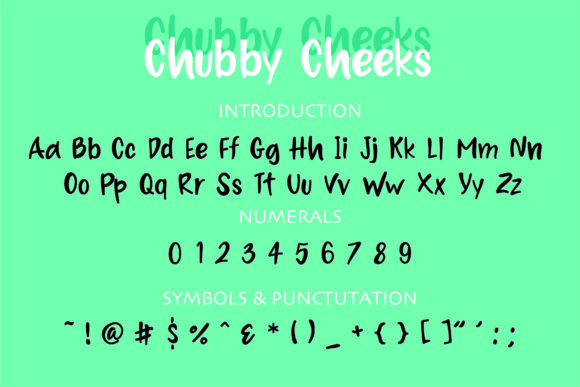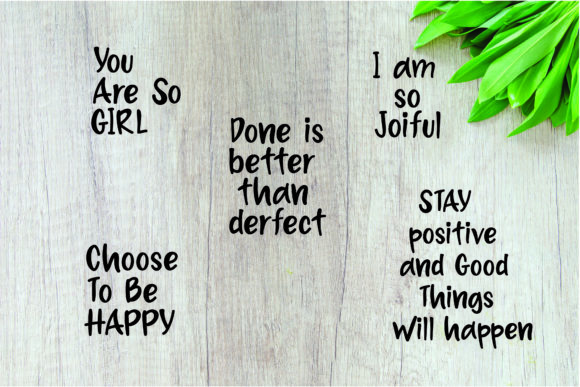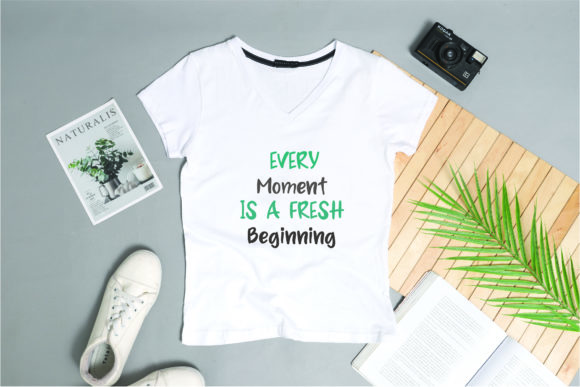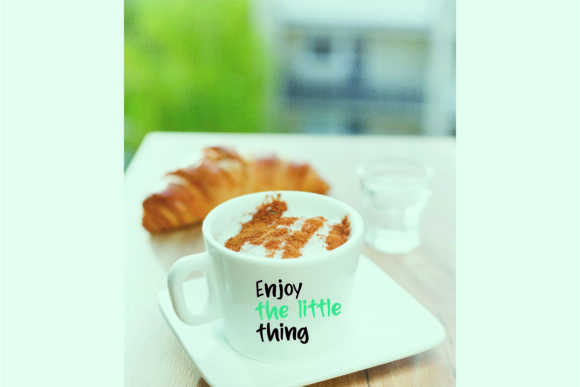
Chubby Cheeks Font
About Chubby Cheeks Font
Chubby Cheeks is a friendly and neat handwritten font. Its sweet and full of life style makes this font a wonderful choice for brightening up your designs.